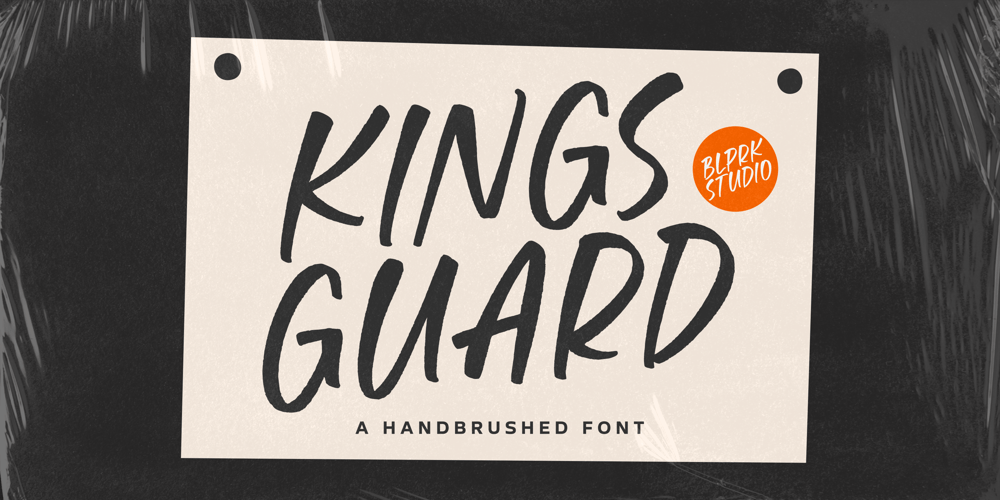
Kings Guard
Kings Guard font
Kings Guard Font Family was designed by Restu Angga and published by Balpirick. Kings Guard contains 1 styles and family package options. Kings Guard is a Handbrushed Font.Whether you’re using it for crafts, digital design, presentations, or making greeting cards, this font has the potential to become your favorite go-to font, no matter the occasion!- also multilingual supportEnjoy the font! Feel free to comment or feedback!–UppercaseThank you!